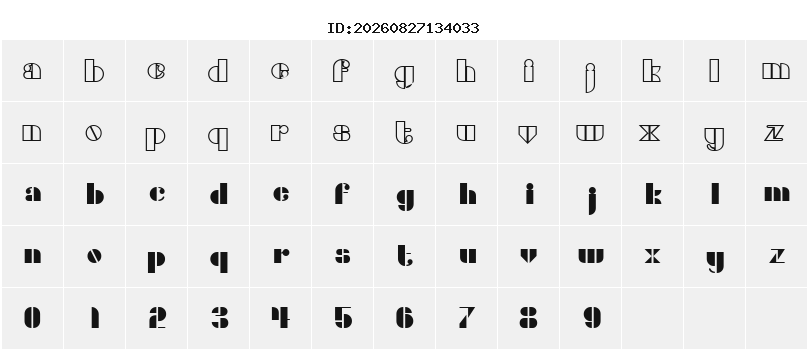
• Font Name: 146-CAI978
• Font ID: 146-CAI978:Version 1.00
• Full Font Name: 146-CAI978
• Version: Version 1.00 March 19, 1998, initial release
• PostScript Name: 146-CAI978
• Character Count: 101
About 146-CAI978.ttf
146-CAI978.ttf is a modern, elegant sans-serif font designed for ultimate readability and visual harmony. Perfect for branding, headlines, web design, and print materials.